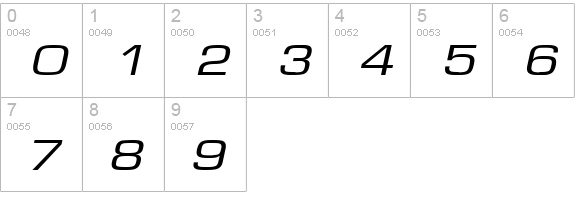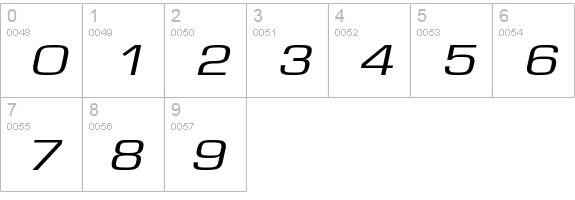
Eurasia Extended Italic is a distinctive, extended-width, italic variant in the Eurasia typeface family \xE2\x80\x94 well suited to design and typography projects.
Eurasia Extended Italic is a beautifully crafted font that exudes elegance and sophistication. Its elongated letterforms and stylish slant create a sense of fluidity and grace, making it ideal for adding a touch of class to any design project. The sleek curves and sharp angles of this font lend a contemporary feel, while its italic styling adds a touch of drama and flair. What sets Eurasia Extended Italic apart is not just its striking appearance, but also the fact that it is available for free download at FontsMarket.com. Whether you're working on a branding project, a website design, or any other creative endeavor, Eurasia Extended Italic is a versatile choice that will help your work stand out. Download it today and elevate your designs with this stunning typeface.